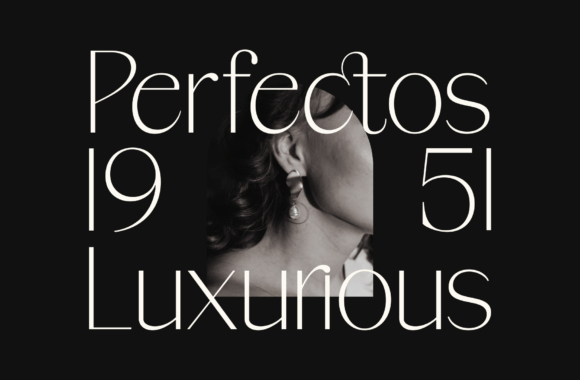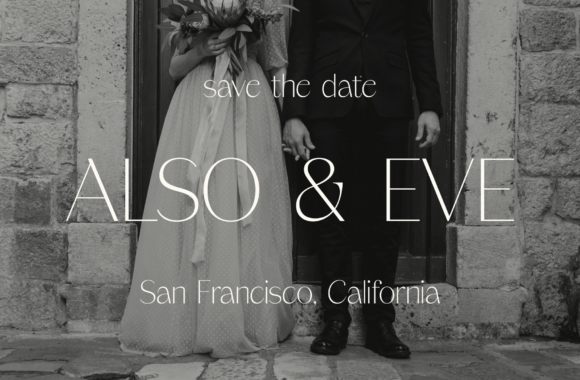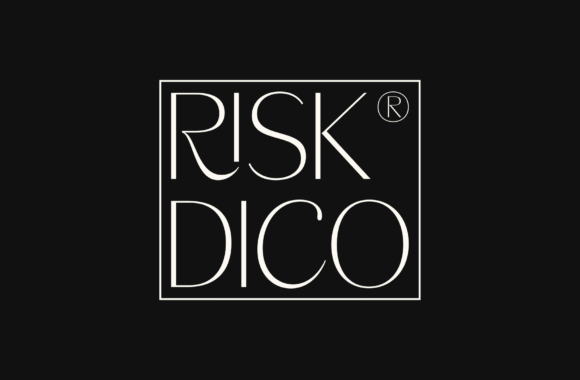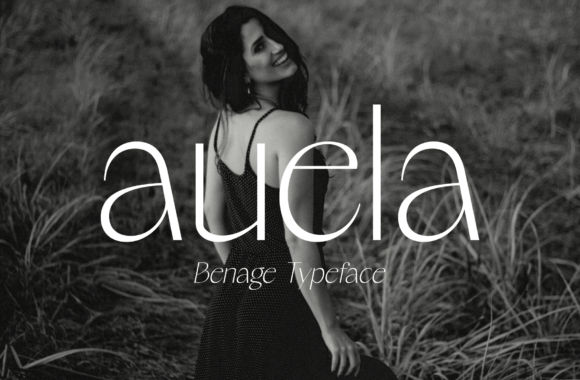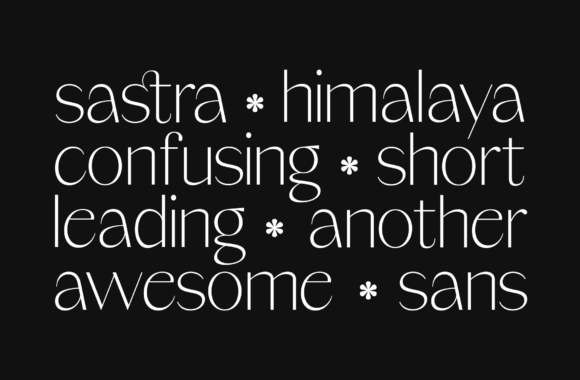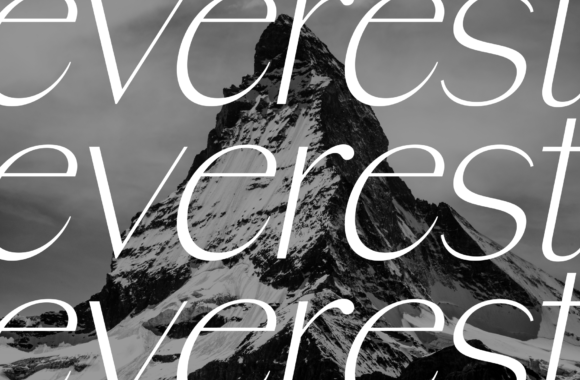
Introduction to Benage Font
Introducing **Benage** font an Elegant Sans Serif typeface designed with a minimalist design.
This font has a thin and clean character, making it an excellent choice for luxury products Its smooth lines and balanced proportions give it an elegant and modern feel.
Key Features of Benage Font